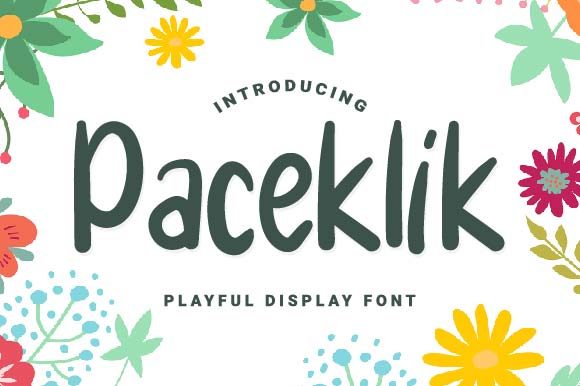
Paceklik Font
Paceklik is a sweet and friendly paint brushed display font that brings warmth and character to any design. Its unique style makes it stand out, offering a fresh way to present text in creative projects. Whether you're working on branding, social media content, or print materials, Paceklik can add a personal touch that feels inviting and approachable.
What Makes Paceklik Unique?
Paceklik stands out for its handcrafted appearance, reminiscent of brush strokes and artistic flair. This font isn’t just visually appealing—it also communicates personality. The soft curves and gentle textures give it a sense of playfulness, making it ideal for projects that aim to connect with audiences on an emotional level.
Unlike many digital fonts, Paceklik retains the charm of handwritten elements. This quality allows it to adapt well to various contexts, from casual blogs to more formal presentations. It’s not just about aesthetics; it's about creating a visual language that resonates with your message.
Creative Possibilities with Paceklik
The versatility of Paceklik opens up a range of creative possibilities. Here are some ideas to inspire your next project:
- Branding: Use Paceklik for logos, taglines, or packaging to create a memorable brand identity.
- Social Media: Incorporate it into headlines, captions, or graphics to capture attention quickly.
- Print Design: Try it in posters, flyers, or book covers where a warm and inviting feel is desired.
- Web Content: Apply it to headers, buttons, or call-to-action sections for a friendly user experience.
- Artistic Projects: Combine it with illustrations or other design elements to enhance storytelling.
How to Use Paceklik Effectively
To make the most of Paceklik, consider how it fits into your overall design strategy. Here are some practical tips:
- Match the Tone: Ensure the font aligns with the tone of your message. A playful project may benefit from bold and colorful uses, while a professional setting might require subtler applications.
- Balance with Other Fonts: Pair Paceklik with clean, modern typefaces to maintain readability and visual harmony.
- Test Different Sizes: Experiment with font sizes to see how it looks in different formats, especially on screens or in print.
- Consider Context: Think about where the font will be used. A large banner may need more space, while a small label should remain legible.
- Use It Intentionally: Avoid overusing Paceklik. Save it for key elements where its charm can shine through without overwhelming the design.
Applications Across Different Audiences
Paceklik is not limited to a specific audience. Its friendly nature makes it suitable for a wide range of users, including:
- Designers: For creating eye-catching visuals that reflect creativity and personality.
- Marketers: To craft engaging content that connects with customers on a personal level.
- Bloggers: To add a unique touch to posts and increase reader engagement.
- Entrepreneurs: For building brand identity and communicating values effectively.
- Educators: To create educational materials that are both informative and visually appealing.
- Hobbyists: For personal projects that showcase individuality and passion.
Practical Inspiration and Recommendations
If you're looking for inspiration, consider these real-world examples:
- Wedding Invitations: Use Paceklik for the main text to create a warm and personalized feel.
- Product Packaging: Apply it to labels or tags to add a handmade touch to your products.
- Event Posters: Highlight event names or dates with this font to draw attention and evoke excitement.
- Online Courses: Use it in course titles or promotional materials to make learning feel more approachable.
- Personal Blogs: Add a signature style by using Paceklik in headers or sidebars.
When choosing when and how to use Paceklik, always keep your audience in mind. Consider the purpose of your design, the platform it will appear on, and the message you want to convey. A thoughtful approach ensures that the font enhances rather than distracts from your work.
Conclusion
Paceklik is more than just a font—it's a tool for expression. By understanding its strengths and knowing how to apply it effectively, you can bring a new level of creativity and personality to your projects. Whether you're designing for business, education, or personal use, Paceklik offers a versatile and friendly option that can elevate your work in meaningful ways.